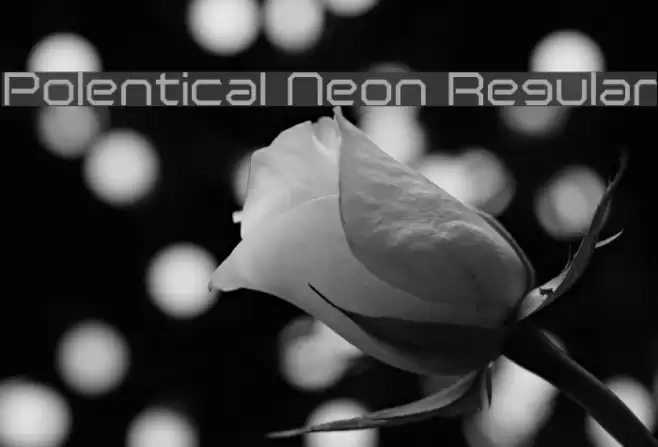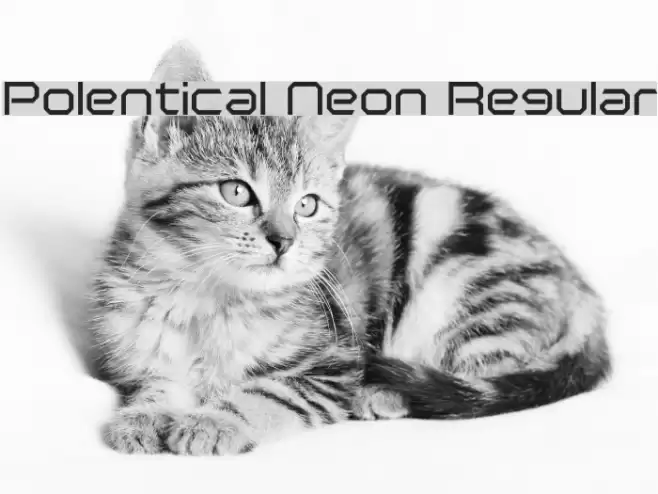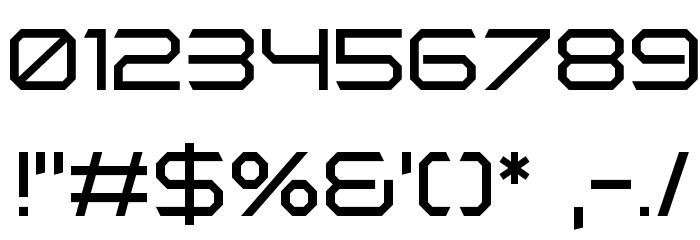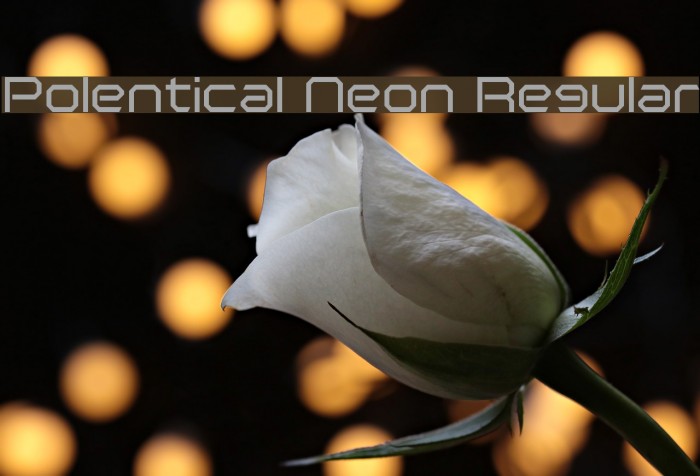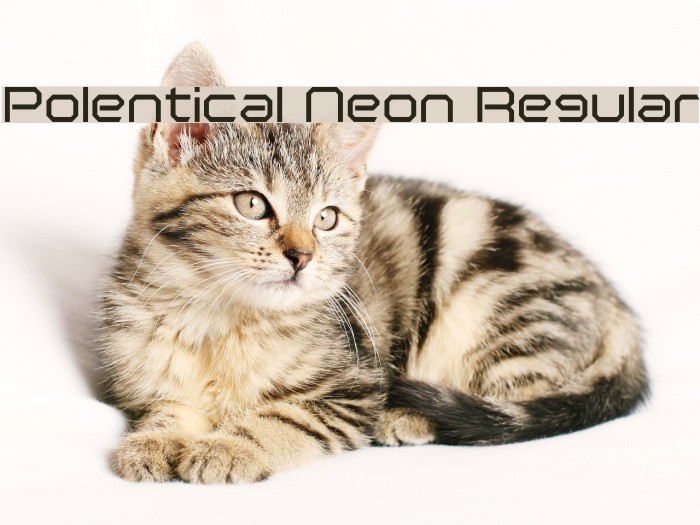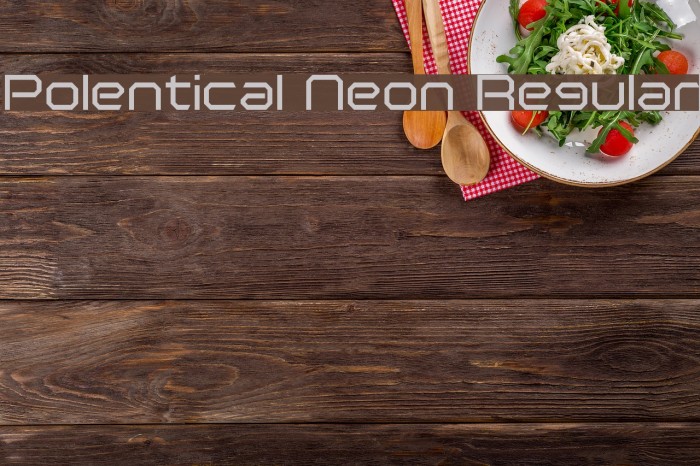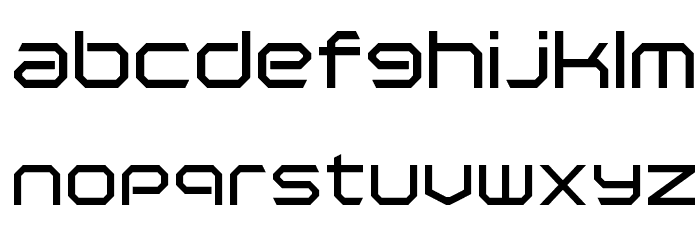
Polentical Neon Regular Font
Polentical Neon Regular Description
This font features a futuristic and geometric design, characterized by its angular and sharp edges. The letters are constructed with a consistent thickness, giving it a uniform appearance. The uppercase and lowercase letters maintain a cohesive style, with a distinct modern flair. The numerals and special characters follow the same geometric pattern, ensuring visual harmony across all characters. This font's unique style makes it stand out, ideal for projects that require a contemporary and edgy look.
A futuristic, geometric font with angular edges and consistent thickness from Futuristic fonts.
- Proposed Projects: Ideal for sci-fi themed designs, technology branding, video game titles, and modern posters.